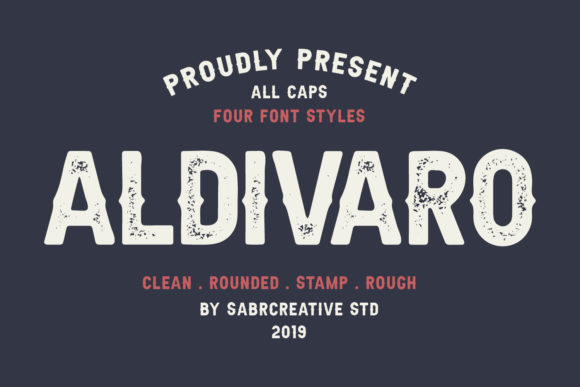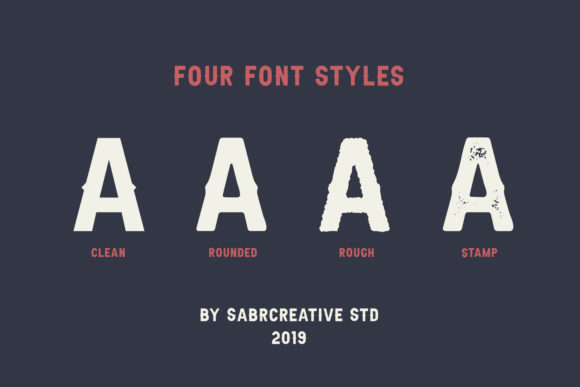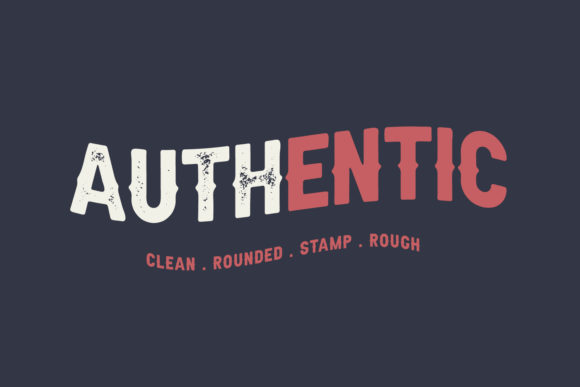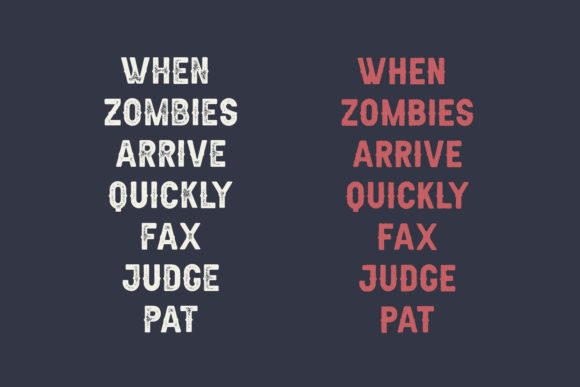
Aldivaro Family Font
About the Aldivaro Family Font
Experience the unique personality of Aldivaro Family Font, a font designed for impact. Aldivaro is a beautful vintage font family in 4 distinct styles. It will add a unique spark to any design project!
Aldivaro’s four styles excel in headline treatments, short-form text on branding materials like logos and packaging, and posters requiring a vintage aesthetic. Its strong character, however, makes it less suitable for body text or UI elements where high legibility is paramount; extended reading would prove difficult.
The font possesses a bold and slightly playful personality, ideal for brands aiming for a retro yet energetic image. It would suit projects related to vintage fashion, craft breweries, or independent music labels.
Pairing Aldivaro with a clean sans-serif like Open Sans for body copy would create a balanced contrast. For a more vintage feel, a complementary serif like Merriweather could be used. Consider a script font such as Great Vibes for added flair in specific applications.
Aldivaro Family Font Usage Examples
Aldivaro Family Font Example